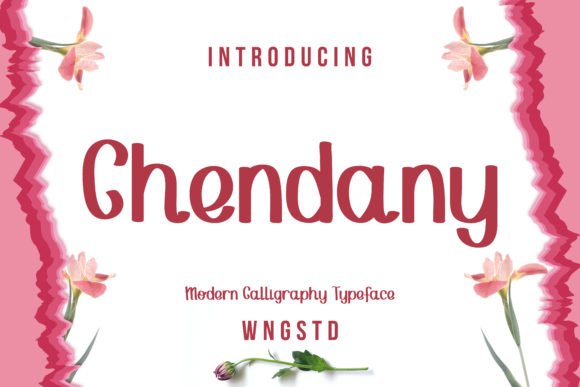
The Perfect Handwritten Touch: Chendany Font
Have you ever found yourself sitting in front of a blank canvas, staring at your design software, and searching for that perfect font to bring your project to life? You know, that one special font that adds a touch of personality and makes your design truly unique? For designers, finding the right font can be a game-changer.
That’s where Chendany Font comes in – a friendly, neat, and cute handwritten font designed to elevate your projects to the next level. With its balanced and varied style, Chendany Font is the perfect addition to any design. Whether you’re creating a beautiful logo, a stylish invitation, or a fun social media post, Chendany Font is sure to enhance the beauty of your project.
Key Features of Chendany Font
- Font Family: Chendany Font is a unique, handwritten font family that offers a wide range of styles and weights.
- Unique Characteristics: Chendany Font features a distinctive, handwritten style with varying line widths, subtle flair, and expressive characters, adding a personal touch to any design.
- Number of Characters: The font family includes a vast character set, including Latin, Cyrillic, and Greek alphabets, as well as punctuation marks and symbols.
Chendany Font Review
As a designer, I was excited to dive into the Chendany Font and see what it had to offer. Overall, I was pleasantly surprised by its unique features and versatility. ✨
- Unique letterforms: The Chendany Font has some really interesting letterforms that add a touch of elegance and sophistication to any design.
- Wide language support: The font supports a wide range of languages, making it a great option for global designs.
- Easy to read: Despite its unique features, the font is still very easy to read, even at smaller font sizes.
However, there are a few limitations to consider. ⚠️
- Lack of bold weight options: While the font has a nice light weight, it would be great to see some more weight options, especially bold.
- Not ideal for very small text: While the font is easy to read, it’s not the best option for very small text sizes.
- No italic option: Unfortunately, the font doesn’t come with an italic option, which can be limiting for certain design projects.
Overall, I think the Chendany Font is a solid choice for designers looking for a unique and elegant font. While it may have some limitations, its strengths make it a great addition to any design arsenal.
For optimal results, use Chendany Font in conjunction with bold or italic formatting to add emphasis to your text. Common use cases include creating unique logos, branding materials, and digital signage.